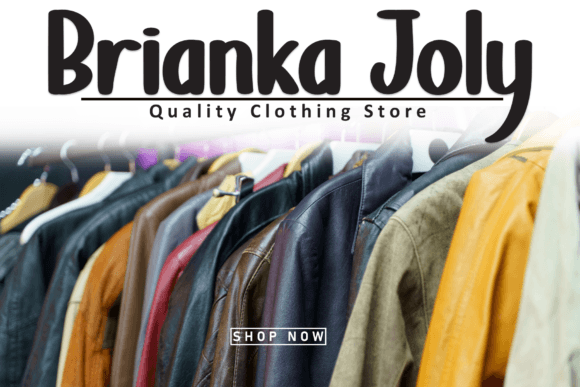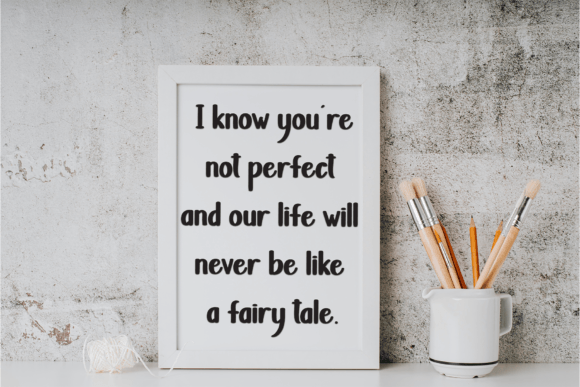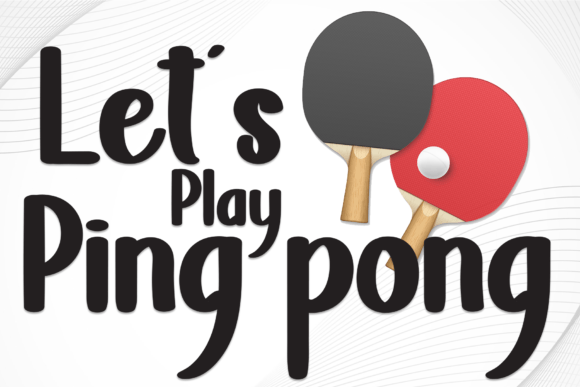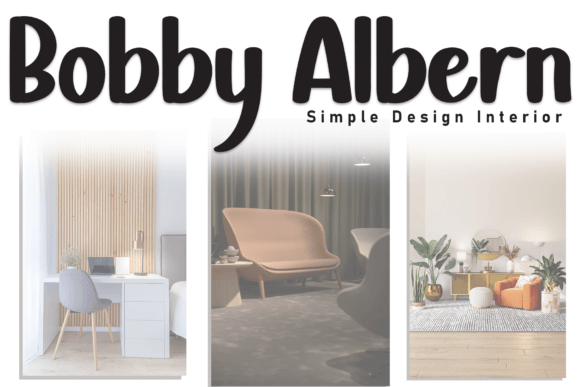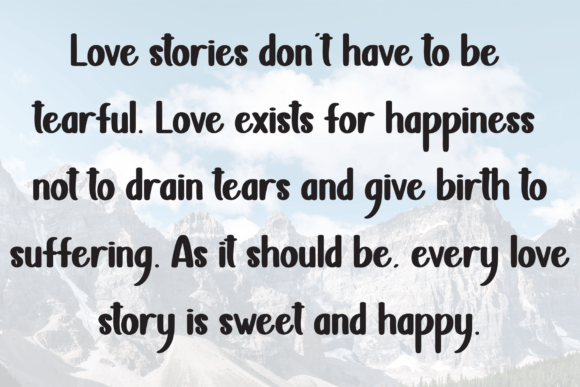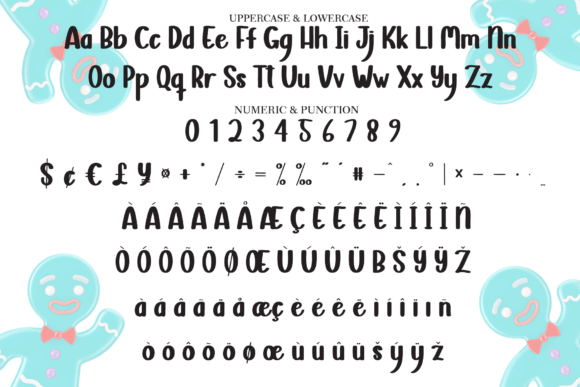
The Sweet Charm of Candyman Font: A Designer’s Delight
I’ll never forget the time I was working on a wedding invitation project, and my client asked for a font that was “fun, yet elegant.” I scoured the internet, tried out countless fonts, but nothing seemed quite right. That was until I stumbled upon Candyman Font. ✨ This sweet and friendly handwritten display font has since become a staple in my design toolkit, and I’m excited to share its charm with you.
Candyman Font is a beautiful, handmade font that exudes warmth and playfulness. Here’s what I love about it:
- ✅ Unique Character: Candyman Font has a distinct, hand-crafted feel that sets it apart from more generic fonts.
- ✅ Versatility: It’s perfect for a wide range of design projects, from wedding invitations and cards to social media graphics and more.
- ✅ Ease of Use: The font is easy to read and works well in both large and small sizes.
- ✨ Aesthetic Appeal: The font’s sweet, cursive style adds a touch of whimsy and fun to any design.
While Candyman Font is a wonderful addition to any design project, it’s not without its quirks:
- ⚠️ Limited Formality: Due to its playful nature, Candyman Font may not be the best choice for more formal or corporate designs.
- 🤔 Glyph Limitations: Some users have reported that the font’s glyph set is not as extensive as they would like.
The Designer Inspiration Behind Candyman Font
Candyman Font was created with the intention of capturing the warmth and playfulness of handmade crafts. The font’s designer aimed to create a typeface that would evoke feelings of joy and celebration, making it perfect for special occasions like weddings and birthdays.
| What is Candyman Font best used for? | Candyman Font is ideal for designs that require a fun, yet elegant touch, such as wedding invitations, cards, and social media graphics. |
| Is Candyman Font suitable for body text? | While Candyman Font can be used for body text, it’s primarily designed for display purposes. For longer blocks of text, a clearer font may be more suitable. |